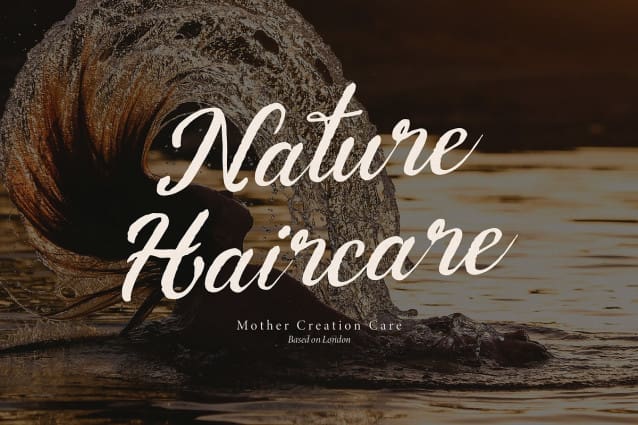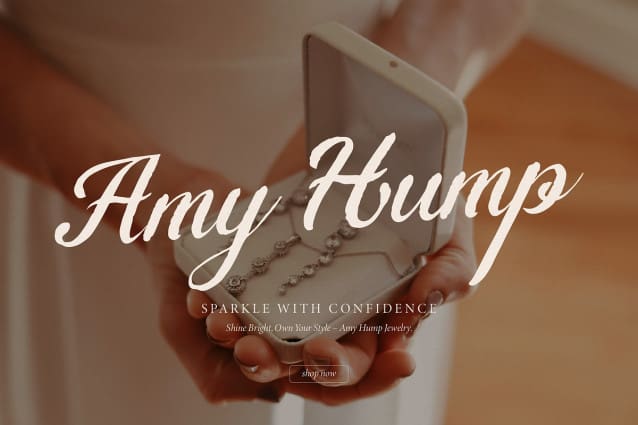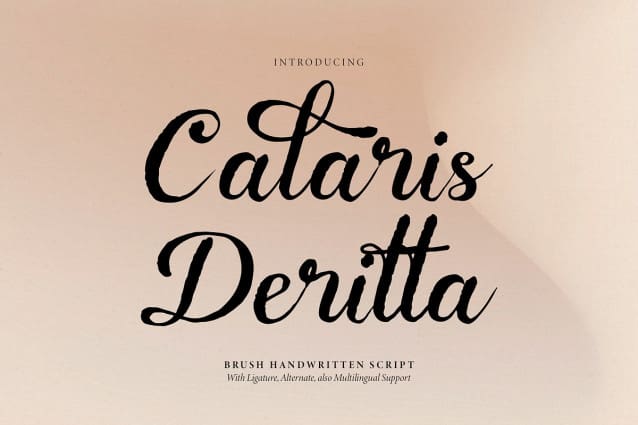
Calaris Deritta Font
Calaris Deritta Font | Brush Handwritten, from Gracetypestudio, suitable for any projects such as: logos, branding projects, homeware designs, product packaging, mugs, quotes, posters, shopping bags, t-shirts, book covers, name card, invitation cards, greeting cards, label, photography, watermark, special events, and all your other lovely projects that need a Brush Handwritten taste.